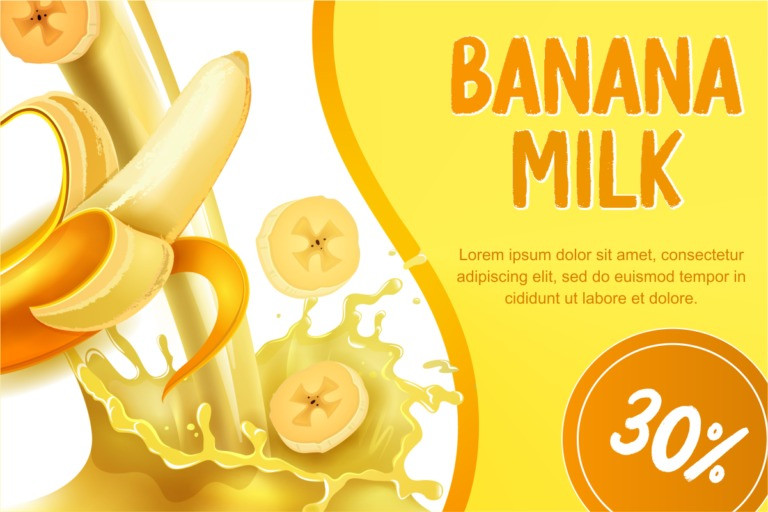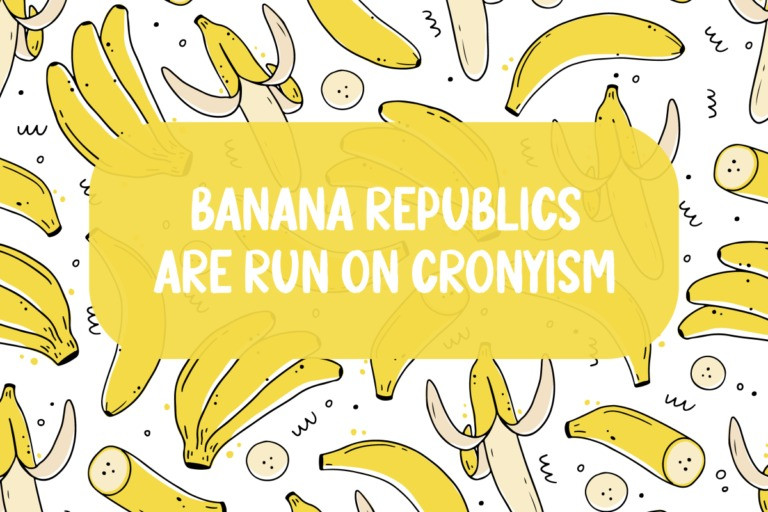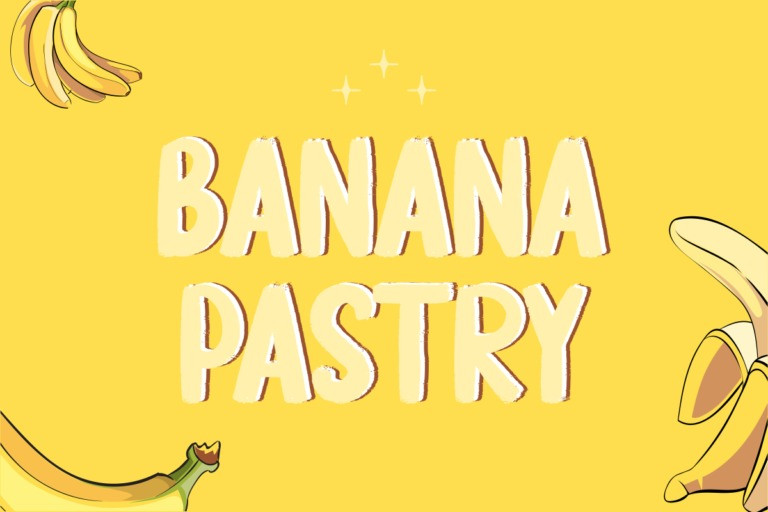
Banana Pastry Font
Banana Pastry Display Font is a new stylish Brush Display Font. It’s perfect for logo, branding, title, social media posts, advertisements, product packaging, product designs, label, photography, watermark, special event, magazine, web designs, etc. If you have any questions please don’t hesitate to contact me.